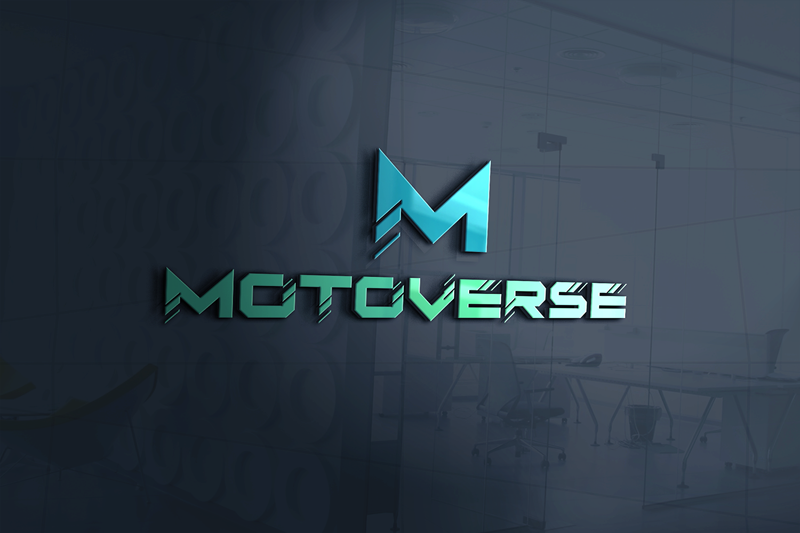
Preview and download Moto Verse Font. Created by J�son Garnica in Techno Various styles with Free for personal use license.
Moto Verse is a bold, thick lettered and futuristic display font. It works incredibly well on logos, branding or pretty much anything that requires a modern vibe. for inquiry please contact jsongarnica@gamil.com https://www.creativefabrica.com/product/moto-verse/ref/231632/ https://fontbundles.net/eyecone/1929638-meta-verse |